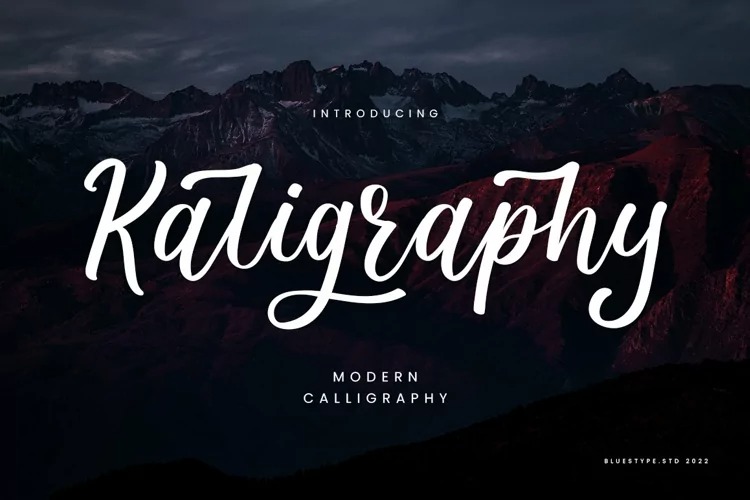
Kaligraphy Script Font
This stunning script typeface is a stylish homage to classic calligraphy. This font is suitable for t-shirt designs, clothing, logotype, magazines, poster, quotes, photography, watermarks, instagram post. The font is also built with OpenType features like alternates and ligatures. So you can mix and match according to what do you need.